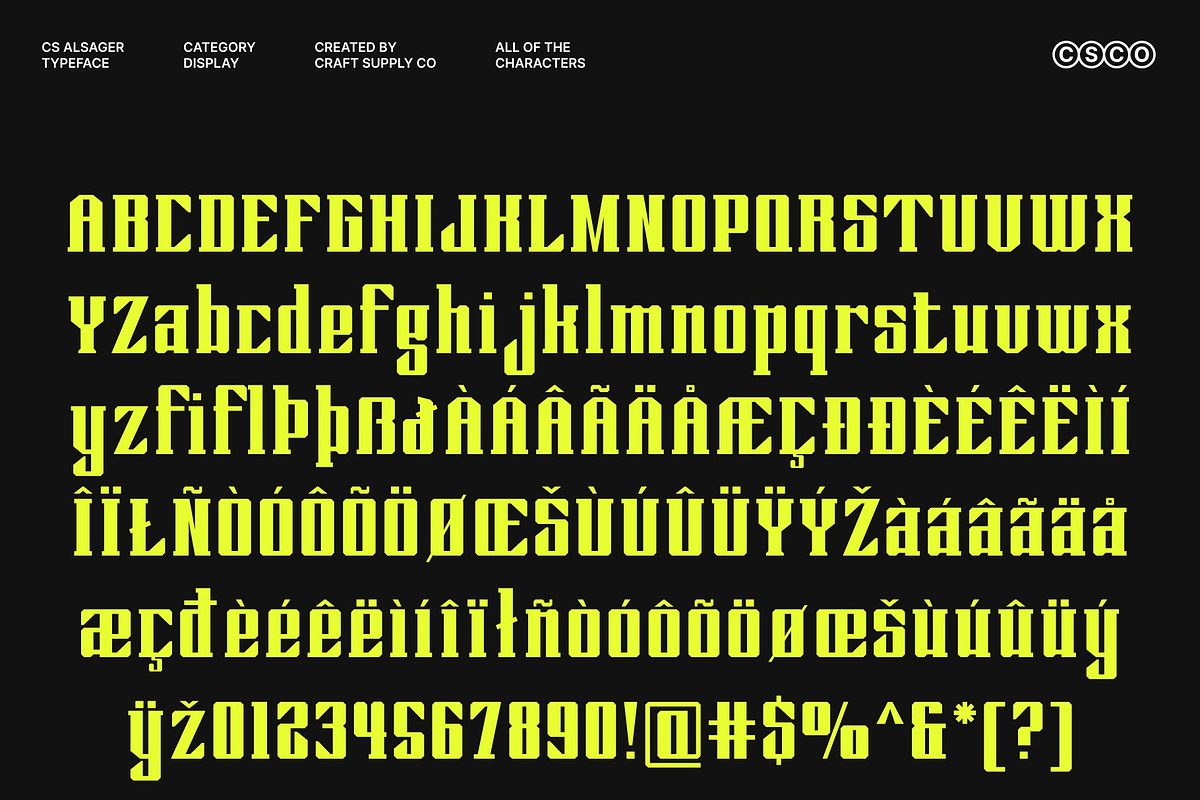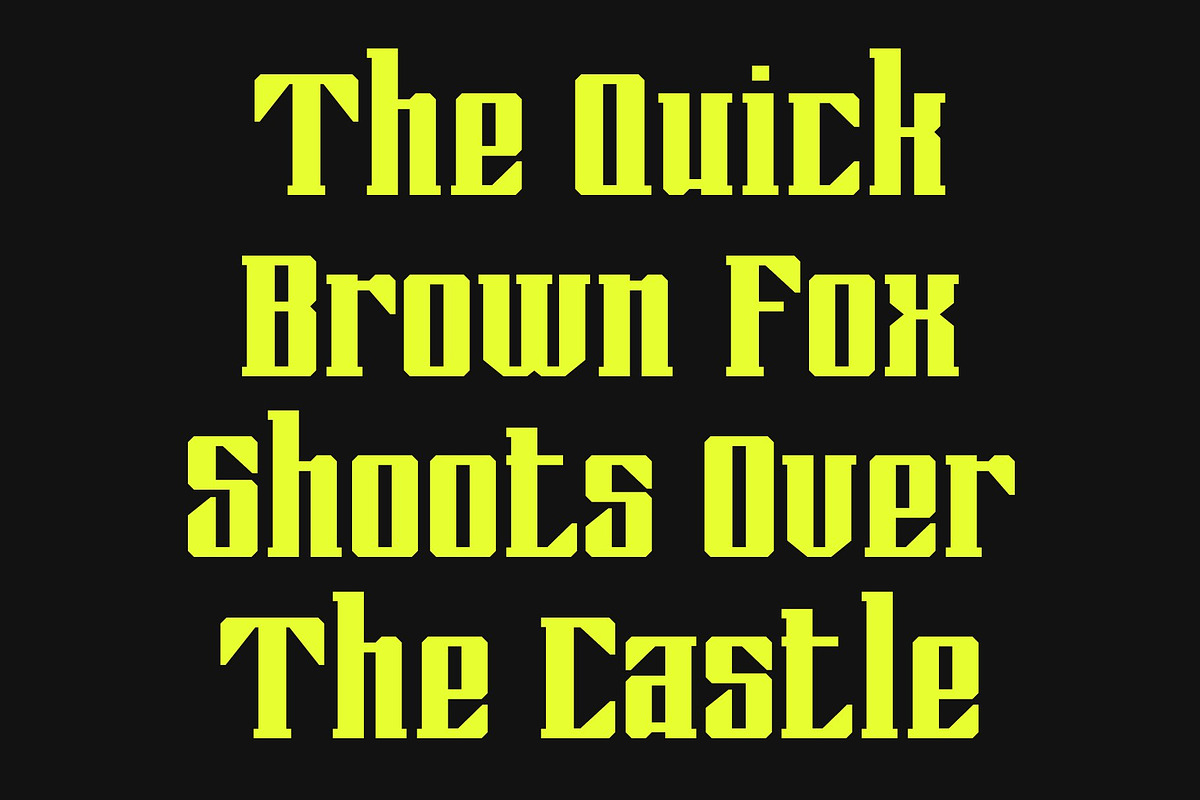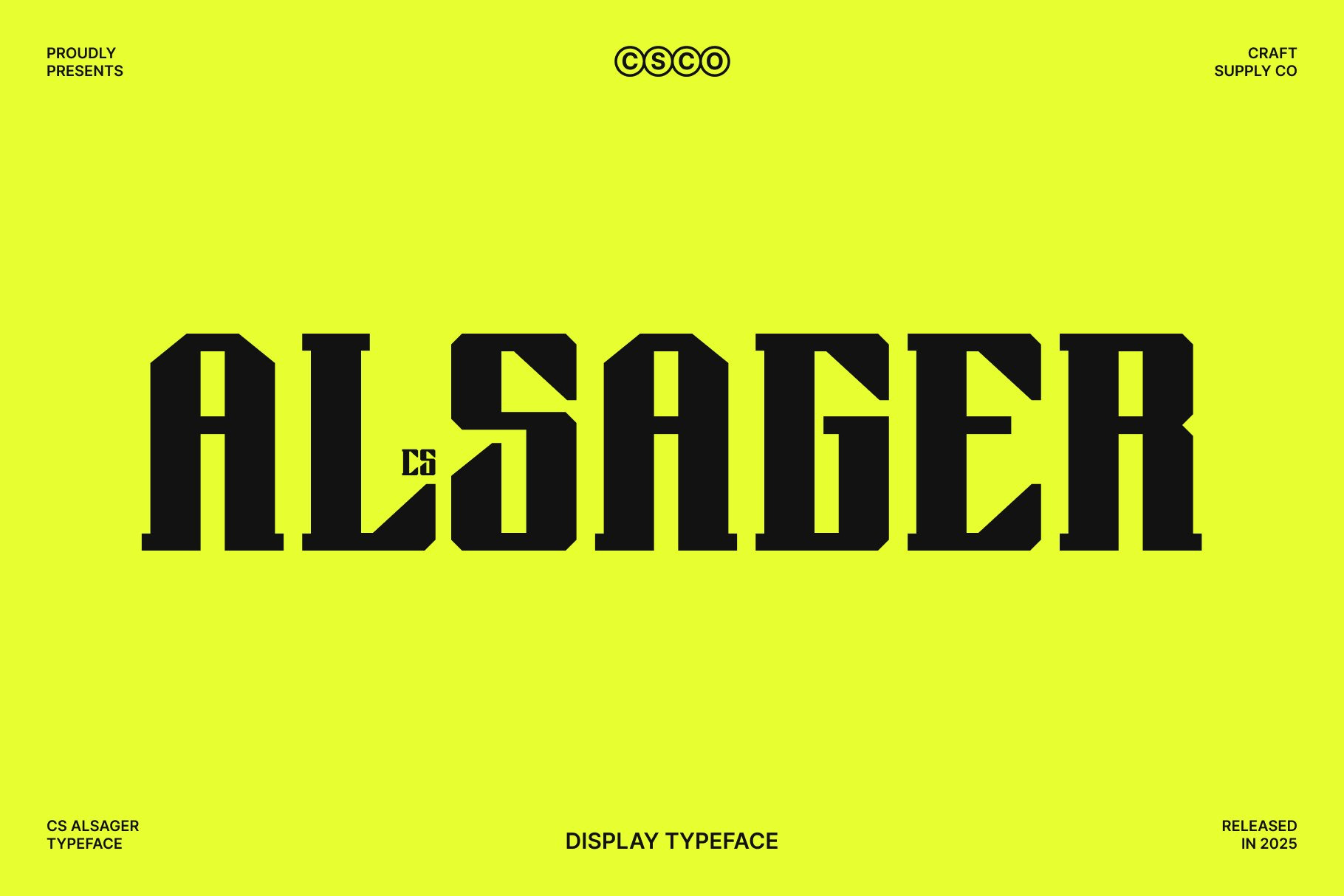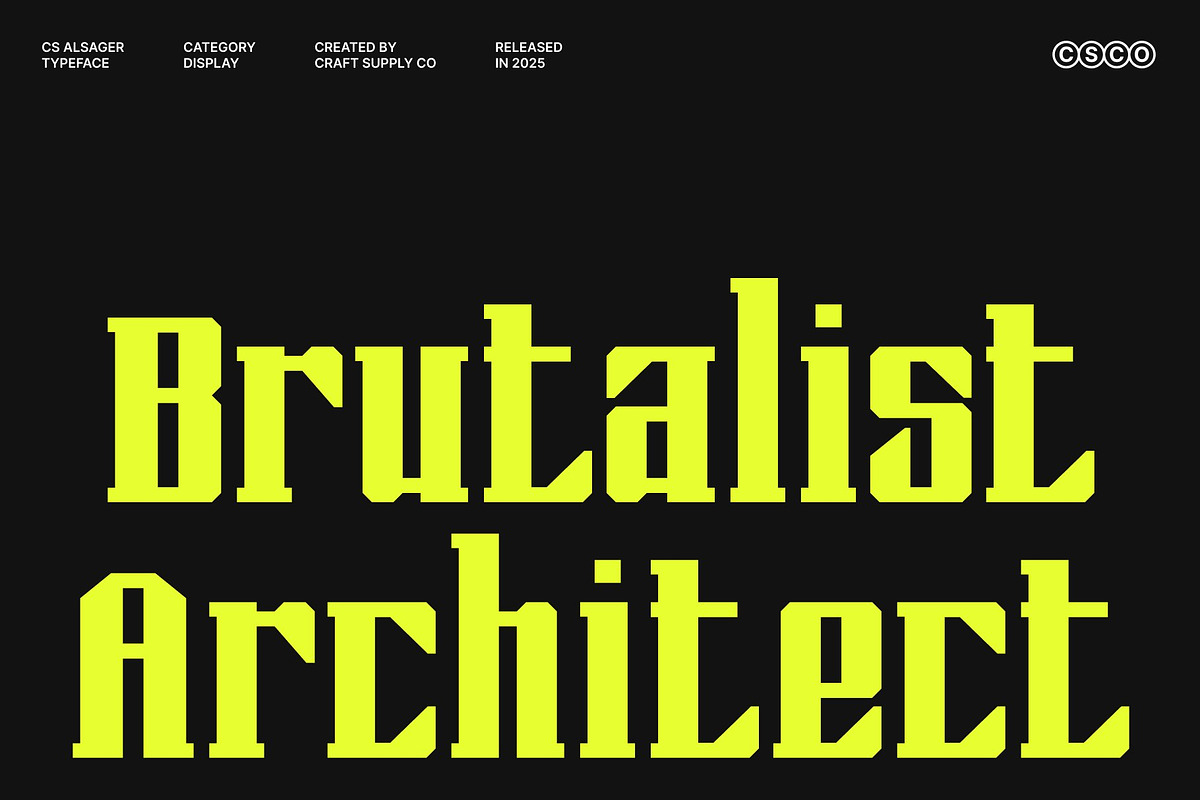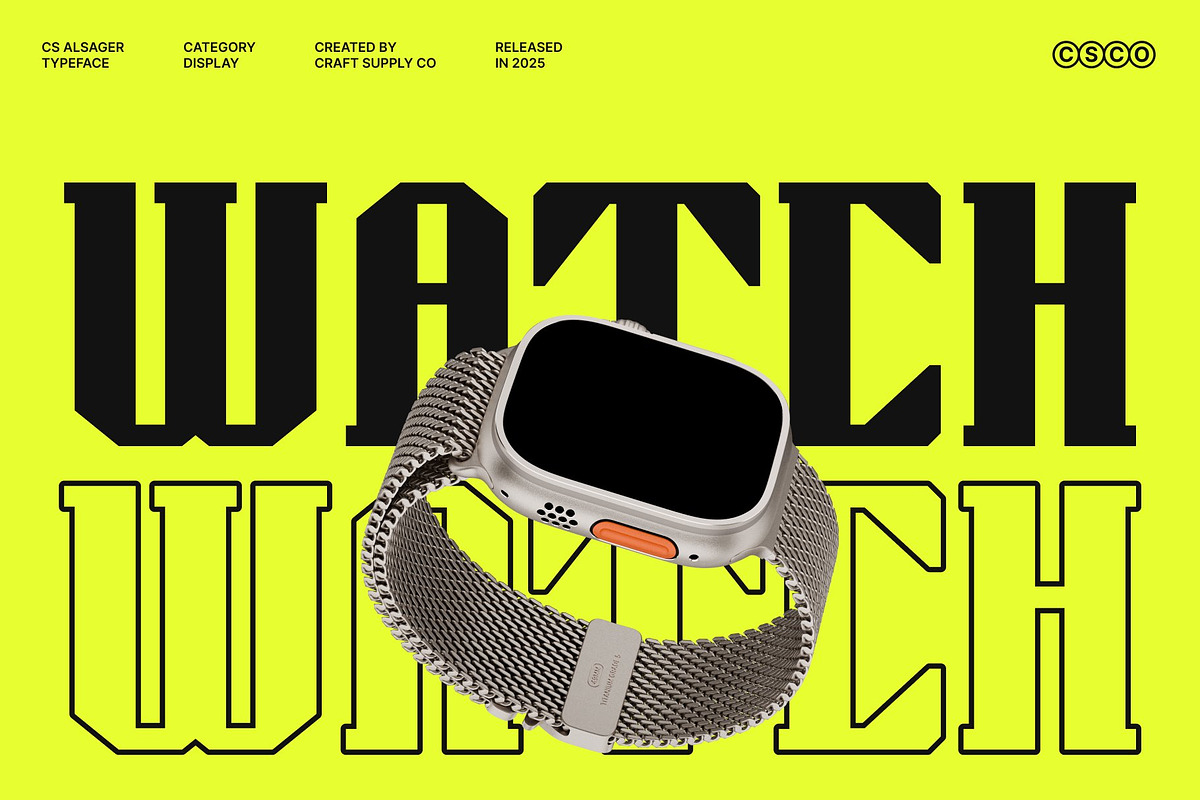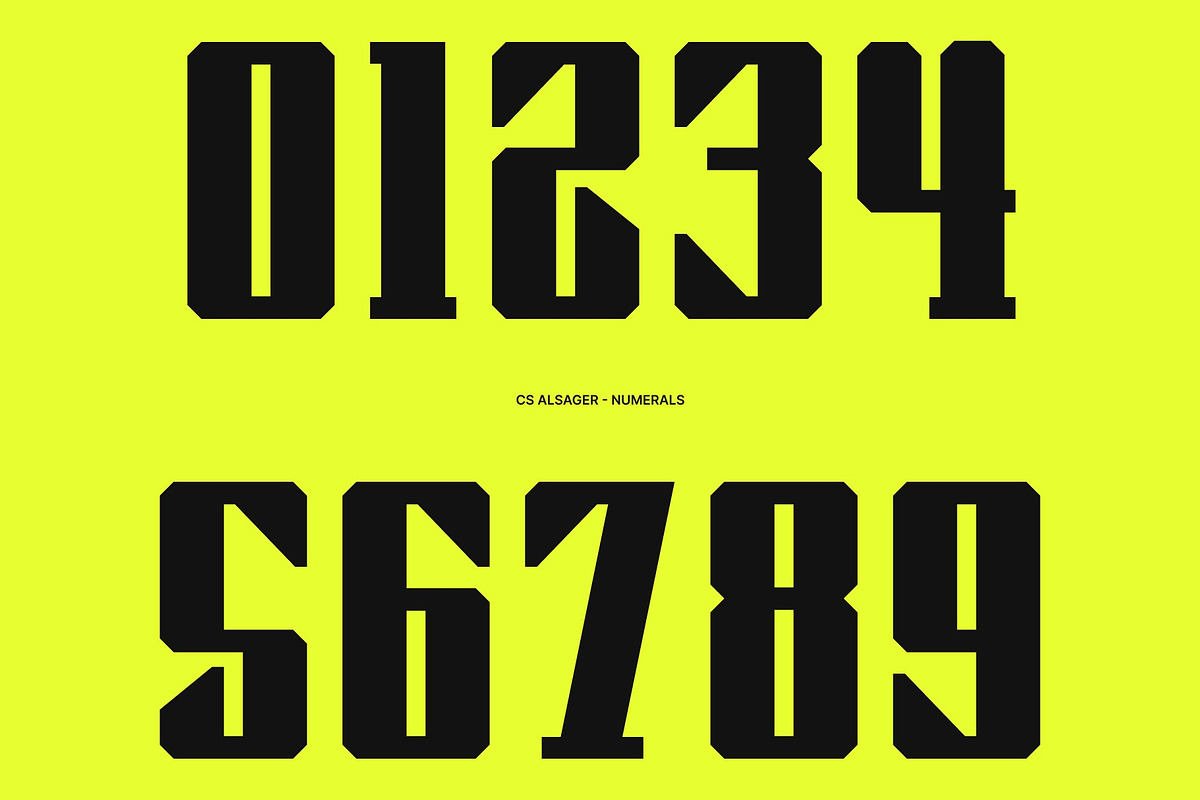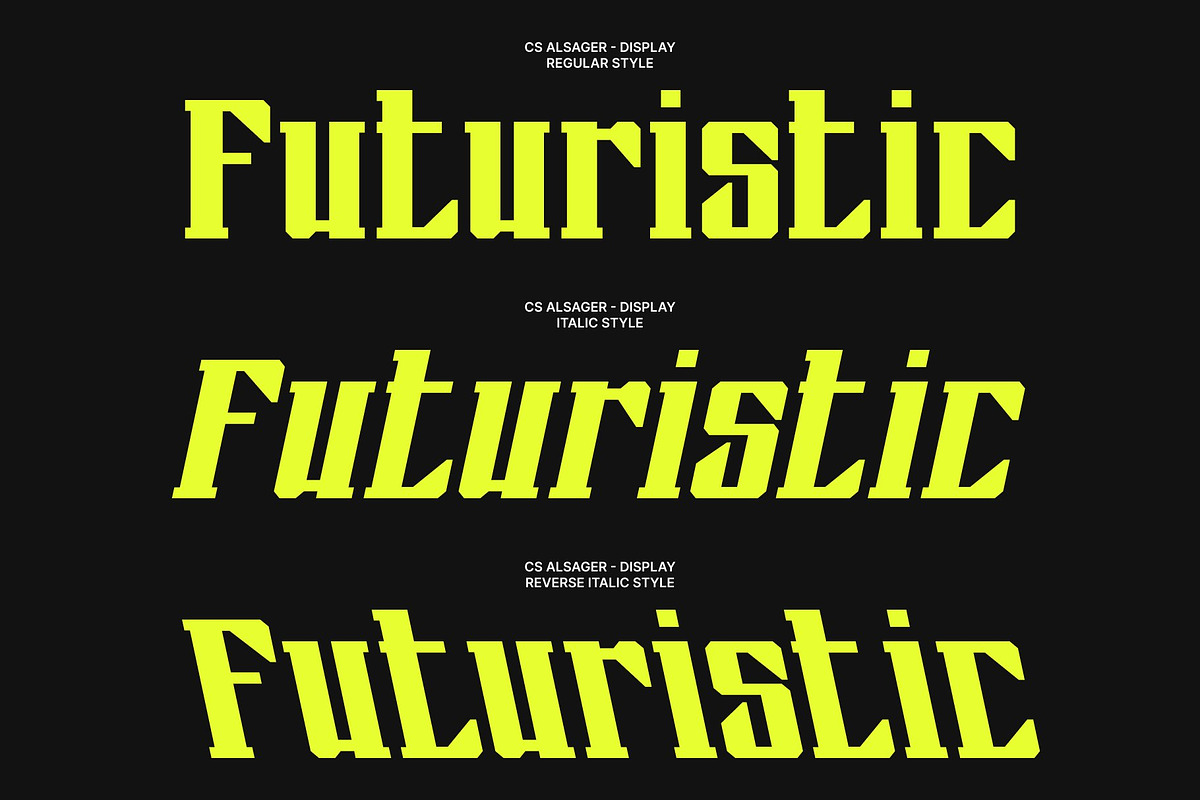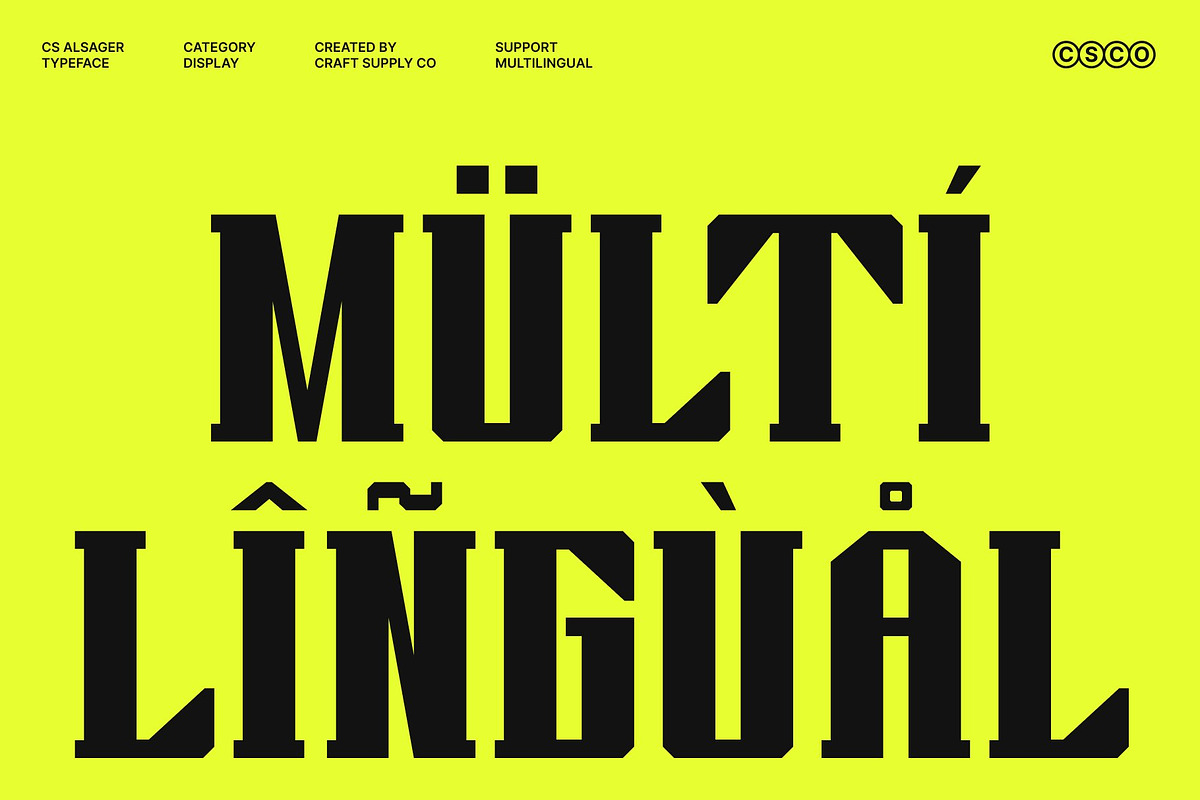
CS Alsager – Industiral Font
CS Alsager – Industrial Strength with Futuristic Precision
Industrial Display Font with Futuristic Character This is an industrial display font built to express strength, control, and technical precision. Its bold construction and sharp serif details create a powerful visual language that feels mechanical, confident, and forward-looking. Inspired by industrial design and futuristic aesthetics, this font delivers a commanding presence that immediately captures attention.
Structured Forms for Powerful Impact The structured anatomy of this font gives it a solid and authoritative appearance. Strong vertical strokes, firm serifs, and balanced proportions work together to create a font that feels engineered rather than decorative. This sense of construction makes it ideal for projects that demand impact and clarity.
Futuristic Precision with Industrial Edge This font blends industrial toughness with futuristic precision, resulting in a font that feels both modern and technical. The clean yet forceful design communicates efficiency, innovation, and progress. Its sharp details and controlled spacing enhance legibility while reinforcing a high-tech, urban atmosphere.
Perfect for Modern Branding and Headlines Designed for versatility, this font excels in modern branding, posters, editorial layouts, and eye-catching headlines. Its dominant personality makes it ideal for urban themes, tech-forward brands, industrial products, and bold visual campaigns. Whether you’re crafting a striking logo, a powerful poster, or a modern brand identity, this font delivers a memorable typographic presence that strengthens your design and leaves a lasting impression.
- CS Alsager Regular
- CS Alsager Italic
- CS Alsager Reverse Italic